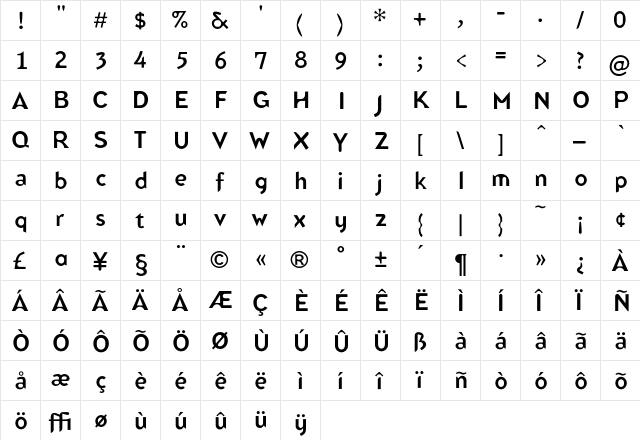
Blindfish Demi
| Style | Demi |
Design Context for Blindfish Typeface
Blindfish is a composed and adaptable typeface that performs quietly and consistently across a wide range of design contexts.